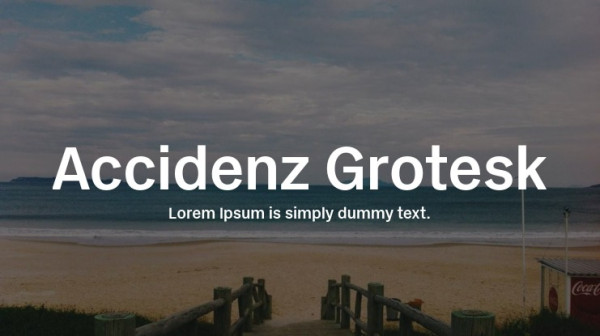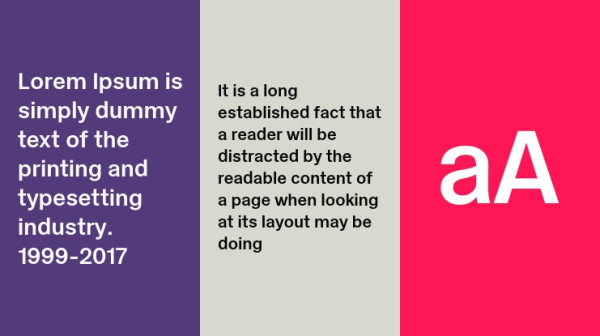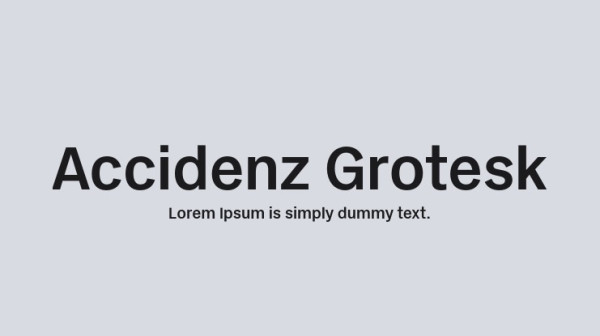
Accidenz Grotesk Font is a sans serif stunning when combined or separately. This sans serif font style is legible and stunningly designed.
Accidenz Grotesk Font
| Designer Name: | Joaquín Contreras Soto |
| Classification: | Sans Serif Fonts, Style / Aesthetic Fonts |